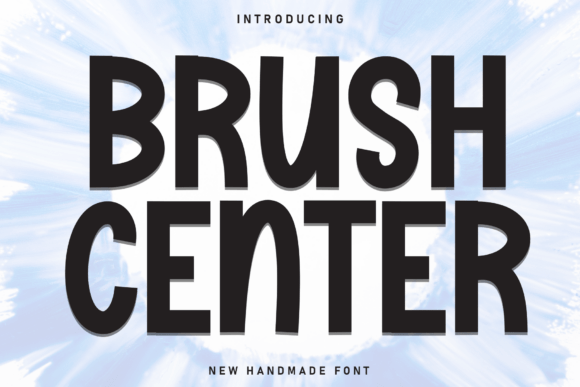
Unleashing the Power of Brush Center Font
Have you ever stared at a blank canvas, waiting for the perfect font to bring your design to life? For many of us, it’s a moment of creative uncertainty that can make or break a project. But what if you could tap into a font that effortlessly combines simplicity with a friendly, approachable vibe? Enter the Brush Center Font, a modern handwritten typography masterpiece that’s sure to elevate your designs.
As a designer, you’re always on the lookout for fonts that deliver clarity, charm, and a touch of personality. That’s exactly what the Brush Center Font offers, with its clean lines, balanced letterforms, and subtle rounded edges. Whether you’re crafting a brand identity, designing packaging, or creating digital content, this versatile font is the perfect addition to your toolkit.
Brush Center Font Key Features
- Size: The font family includes multiple weights, from Thin to Extra Bold, allowing for flexibility in design and typography.
- Unique Characteristics: The Brush Center Font features a unique, hand-drawn style with subtle brushstrokes and texture, giving it a distinctive and artistic feel.
Brush Center Font Review
Overall, I was excited to dive into the Brush Center Font, and while it has some lovely qualities, it also comes with some notable limitations.
- Unique Aesthetic: The Brush Center Font boasts a distinctive, hand-painted feel that sets it apart from more traditional fonts. Its organic, imperfect look can add a touch of whimsy and personality to designs.
- Readability: Despite its unique style, the font remains relatively easy to read, especially at larger sizes. The letterforms are well-proportioned, making it suitable for body text.
- Legibility at Smaller Sizes: While the font reads well at larger sizes, it can become fuzzy and difficult to decipher at smaller sizes, which may limit its use for headlines or captions.
- Lack of Versatility: The Brush Center Font’s distinctiveness can also make it challenging to pair with other fonts or design elements, which may limit its use in more complex designs.
Overall, I think the Brush Center Font is a great choice for designers who want to add a touch of personality and whimsy to their designs. However, it’s essential to consider its limitations and use it judiciously to ensure the best results.
Brush Center Font is perfect for:
- Creating hand-drawn and artistic designs.
- Adding a touch of elegance and sophistication to presentations and documents.
- Designing unique and creative typography.
With its versatility and creative possibilities, Brush Center Font is a valuable addition to any designer’s toolkit.